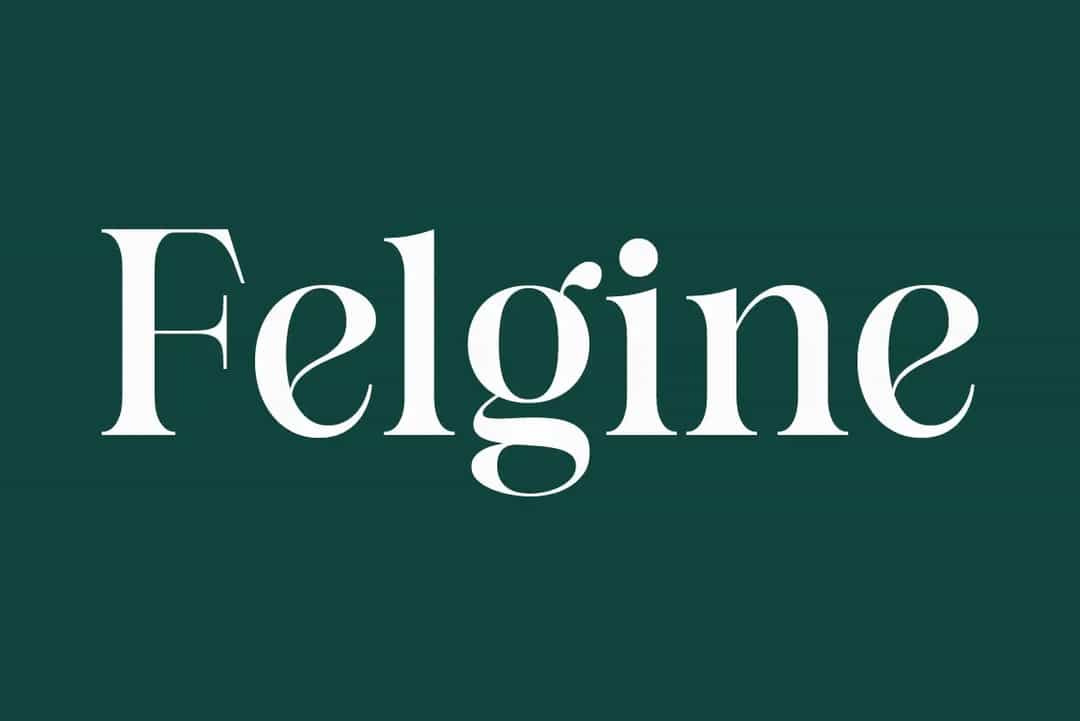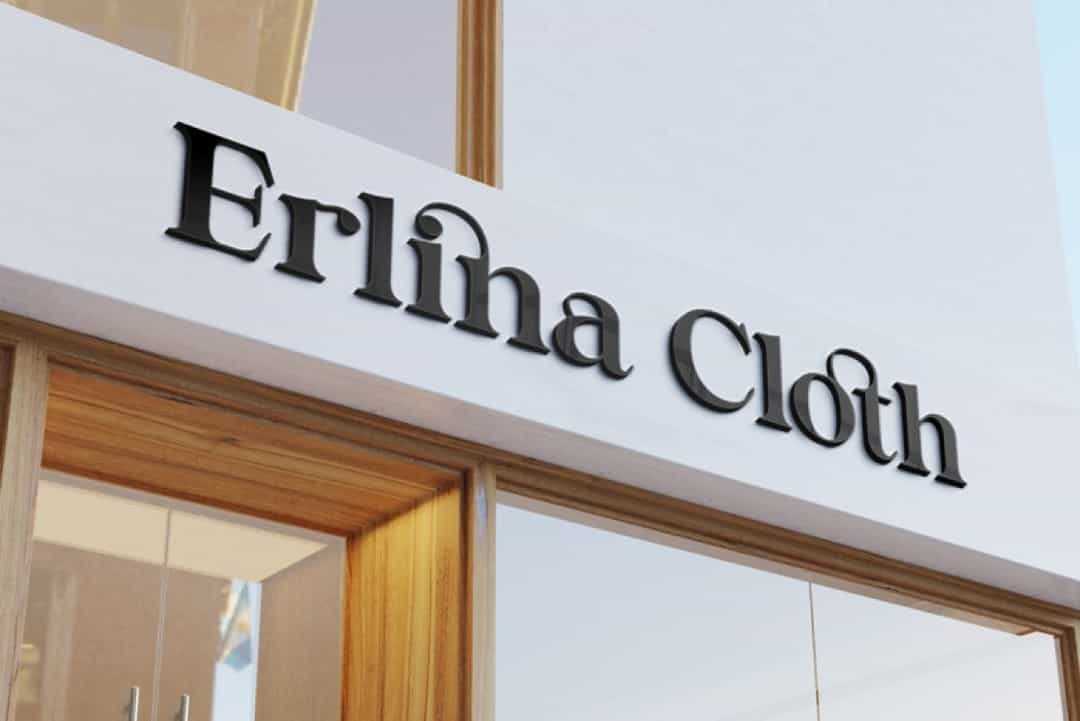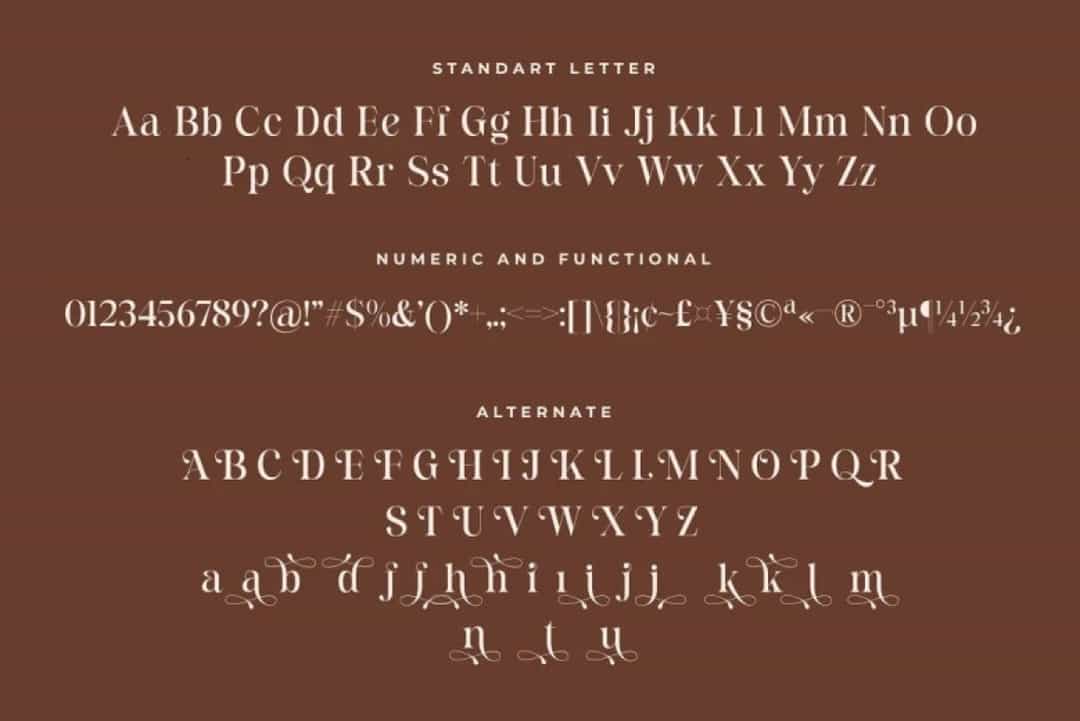
Felgine is a display serif font that has nice elegant contrast and has a few special ligatures for the optional use. Best for fashion related projects, very appropriate for creating stylish, elegant, lifestyle designs for logos, titles, magazine, and etc. You now have more options when it comes to using Felgine for text.